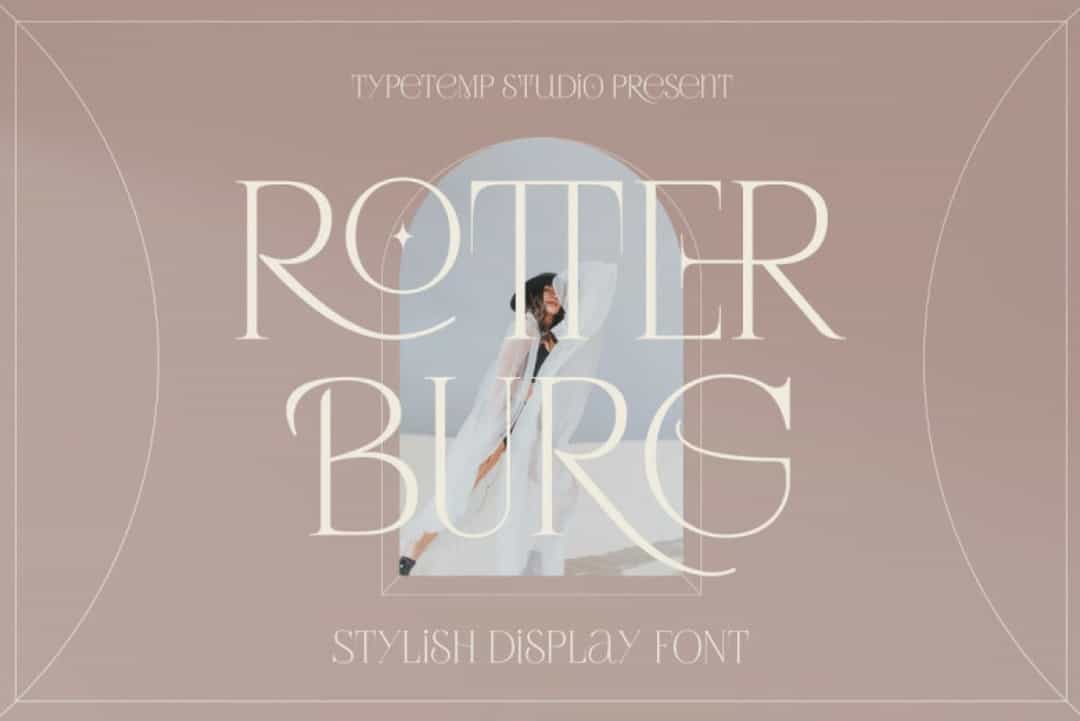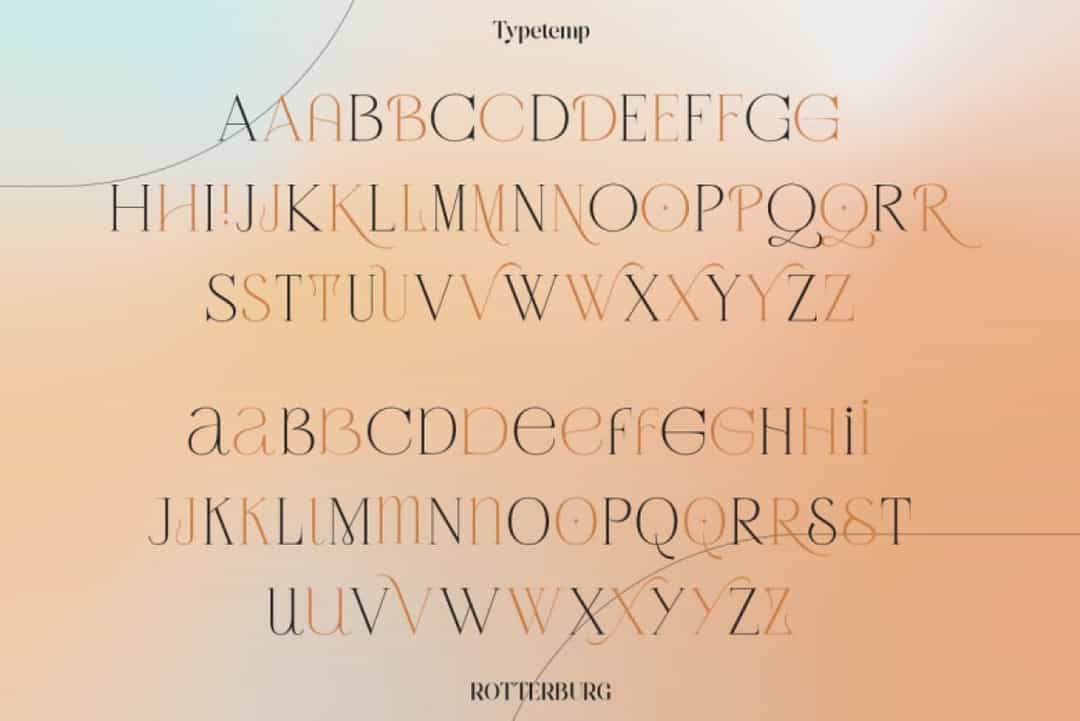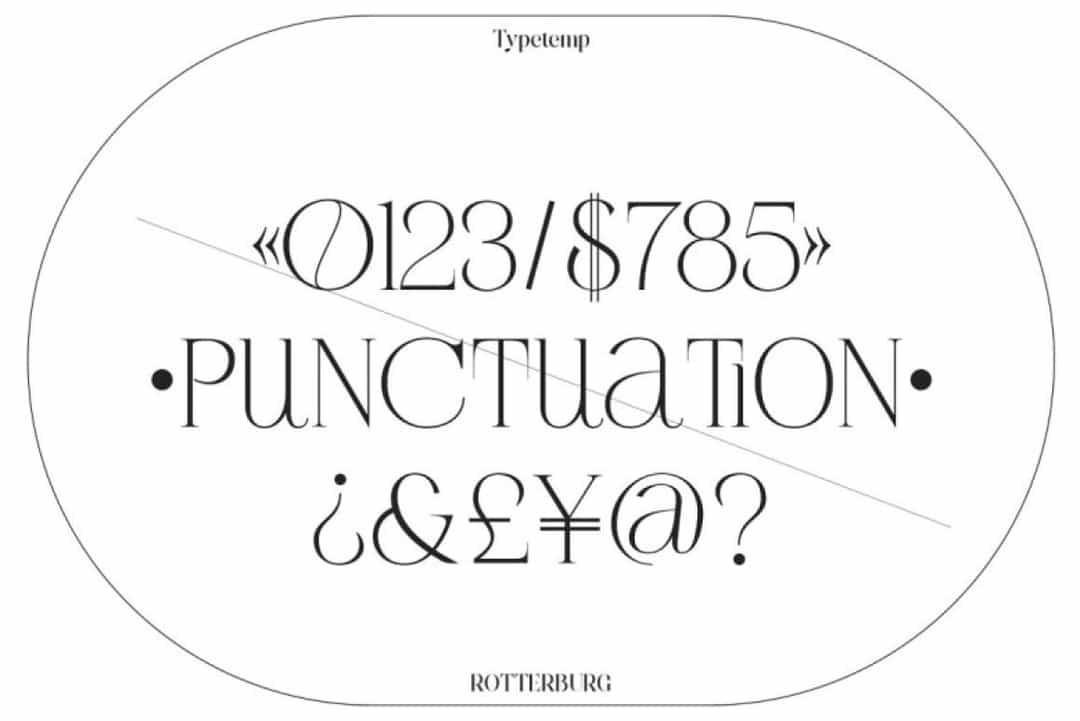
Rotterburg is a serif font with both the lower and uppercase letters being complemented by similar handwritten counterparts as well as OpenType features to access a comprehensive set of letter and ligature variations. Just choose your letter preference from the list of fonts below until you get a one you like!